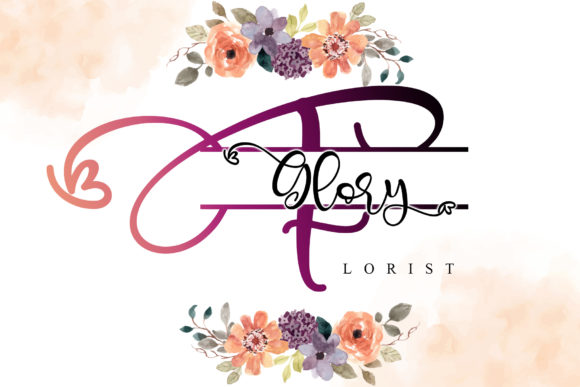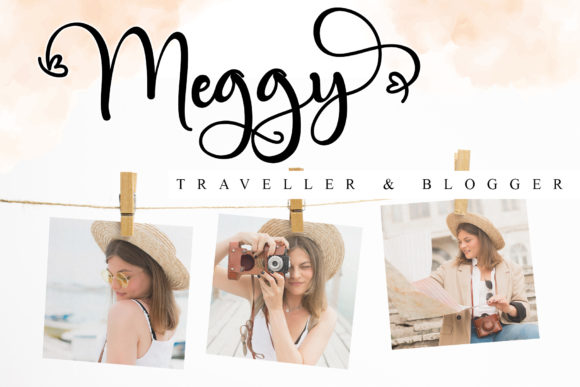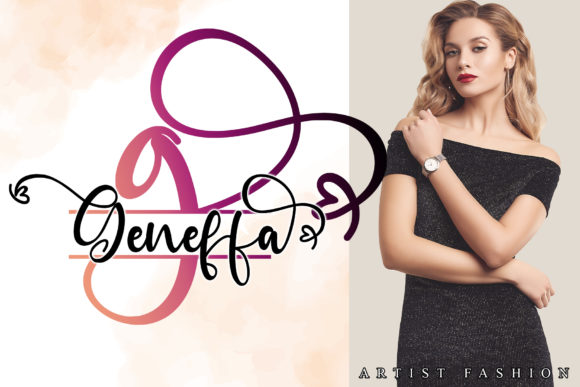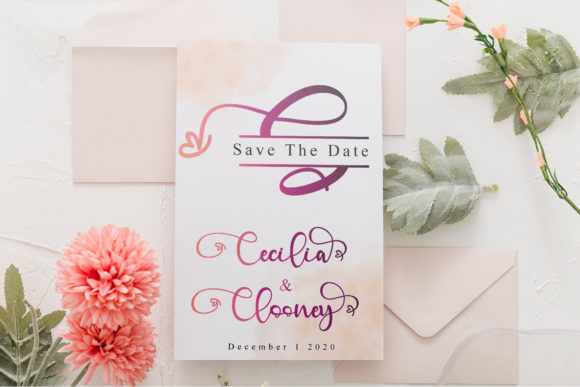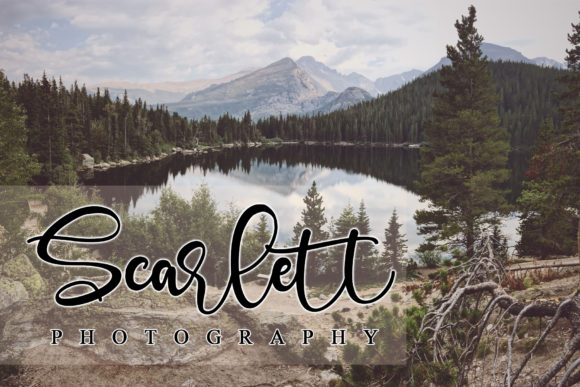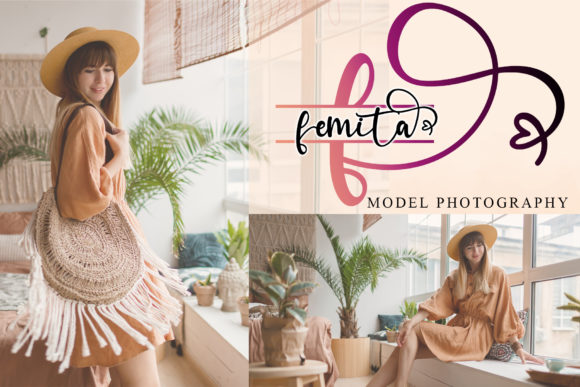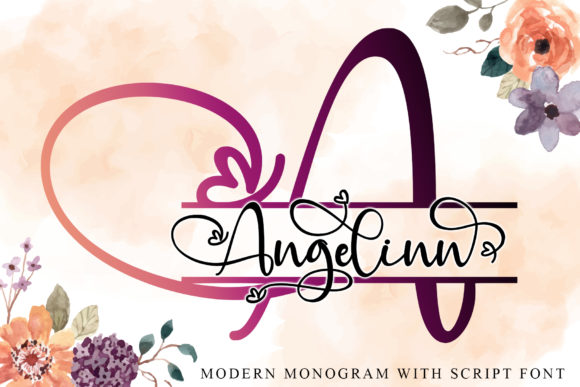
Angelinn is an elegant and flowing handwritten font that has become a staple in my design toolkit. It’s PUA encoded, which means you can access all of the glyphs and swashes with ease! It features a varying baseline, smooth lines, gorgeous glyphs, and stunning alternates. It maintains its classy calligraphic influences while feeling contemporary and fresh.
- ✨ Elegant and flowing handwritten design
- ✅ Varying baseline and smooth lines for a natural look
- ✅ Gorgeous glyphs and stunning alternates for added creativity
- ✅ Classy calligraphic influences with a contemporary twist
While Angelinn Font is an amazing addition to any design project, there are a few things to keep in mind. 🤔
- ⚠️ Some users may find the font overwhelming due to the sheer number of glyphs and swashes.
- ⚠️ The font may not be suitable for very small text sizes or body text due to its elegant and cursive nature.
The Story Behind Angelinn Font
Angelinn Font was created with the goal of providing a elegant and sophisticated handwritten font that would inspire designers and creatives. The font’s designer wanted to create a font that would evoke a sense of luxury and refinement, while still feeling modern and fresh.
Q: What is PUA encoding, and how does it benefit the user?
A: PUA (Private Use Area) encoding allows users to access a wide range of glyphs and swashes, making it easier to customize and personalize their designs.
Q: Is Angelinn Font suitable for body text or small text sizes?
A: While Angelinn Font is an amazing font, it may not be the best choice for body text or small text sizes due to its elegant and cursive nature.